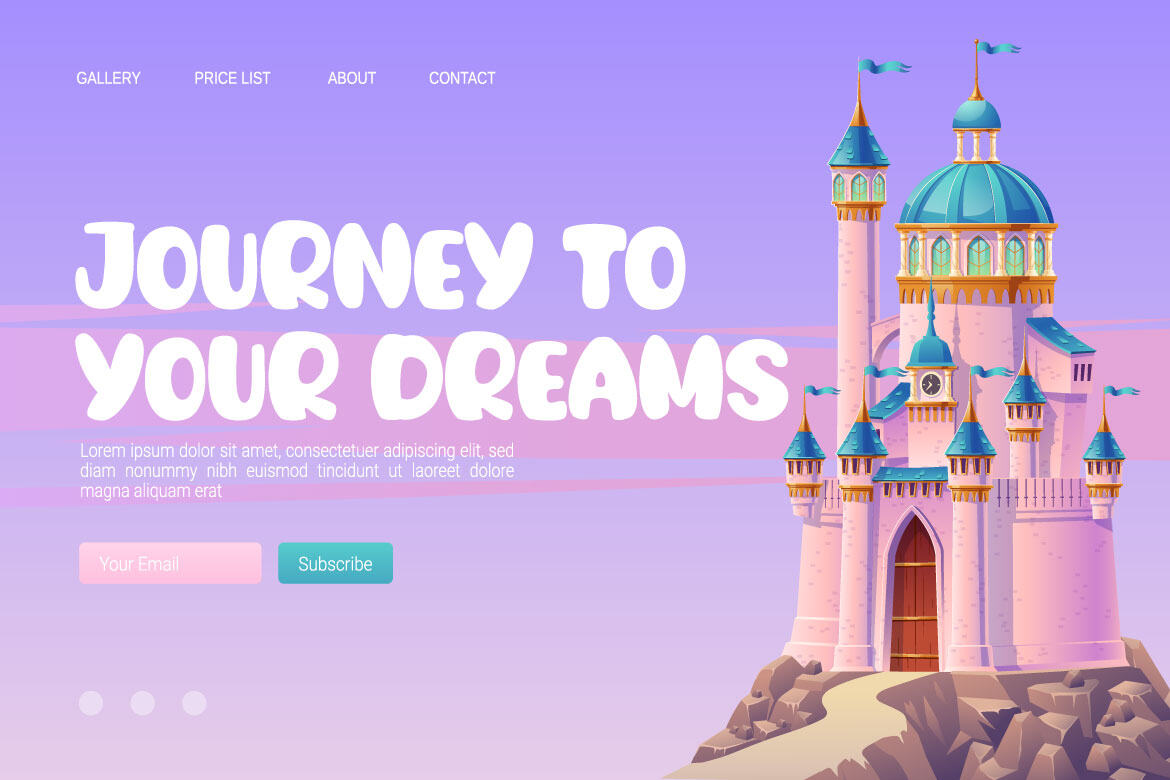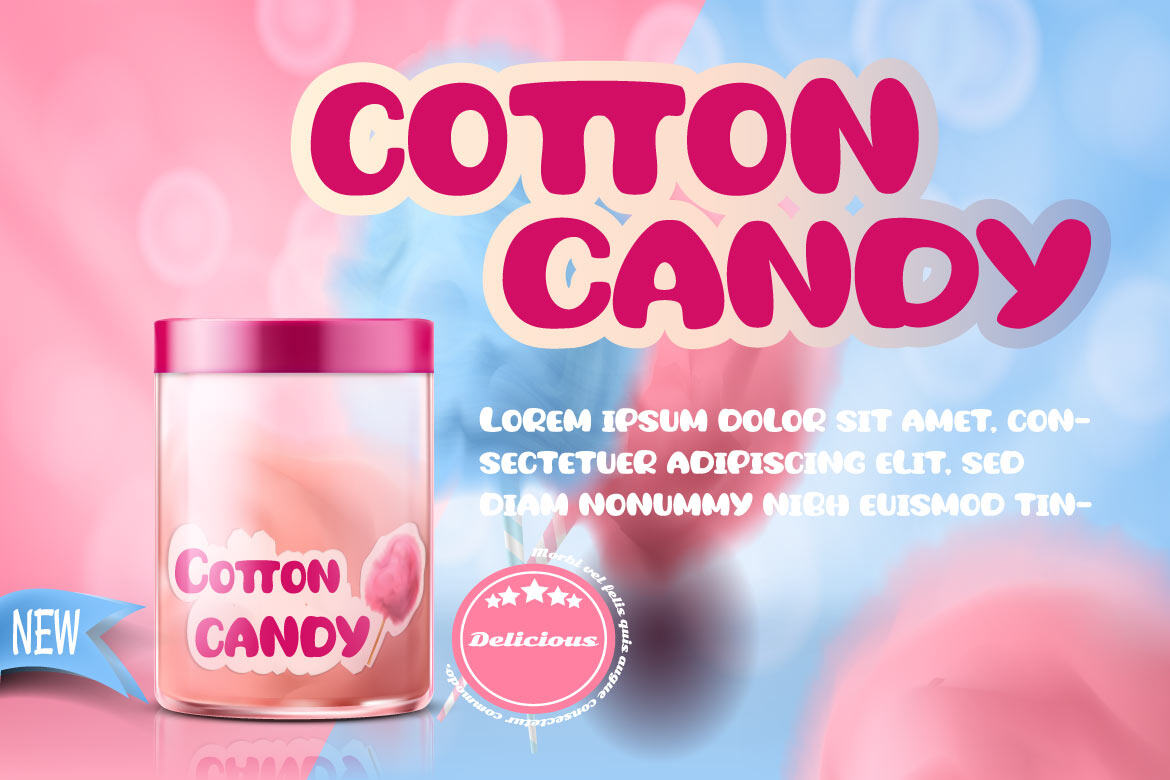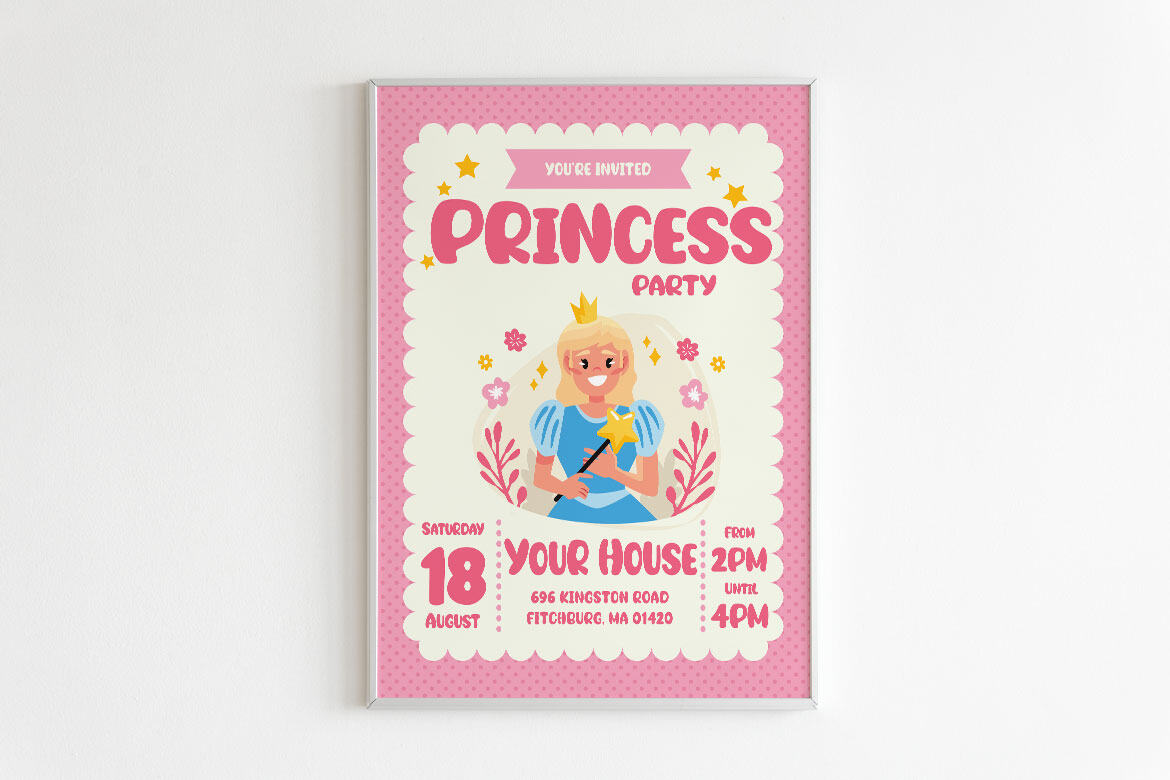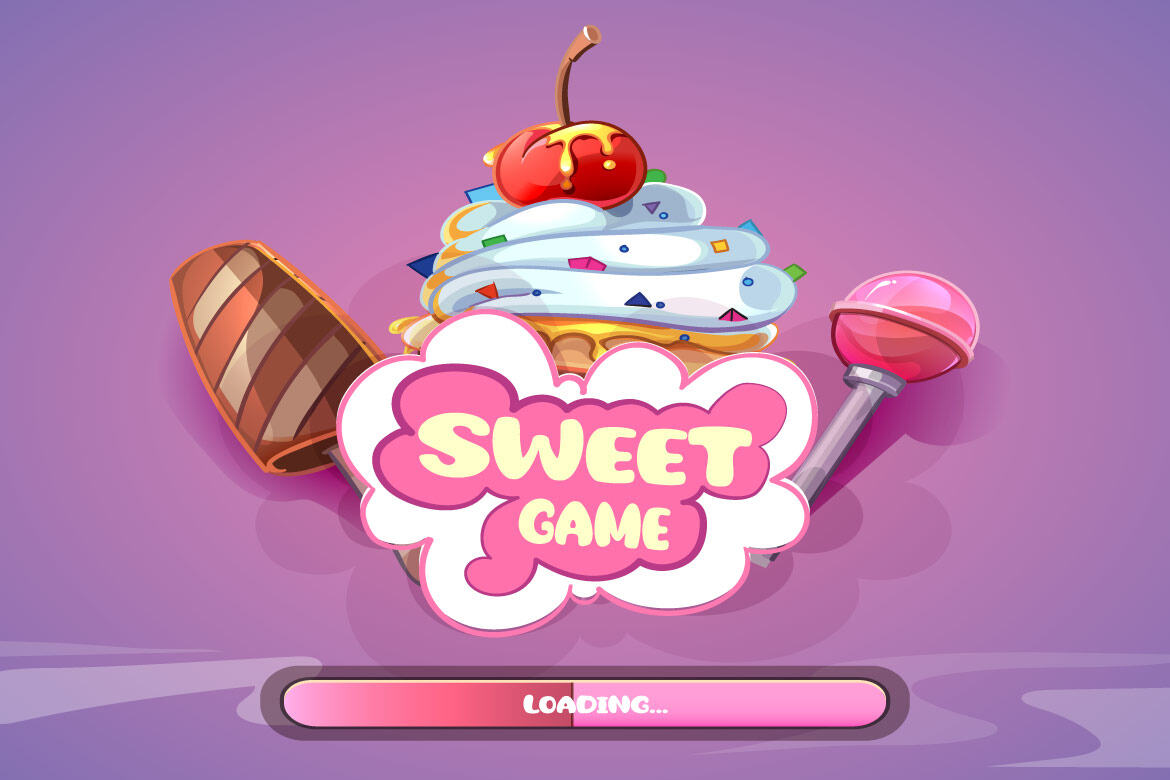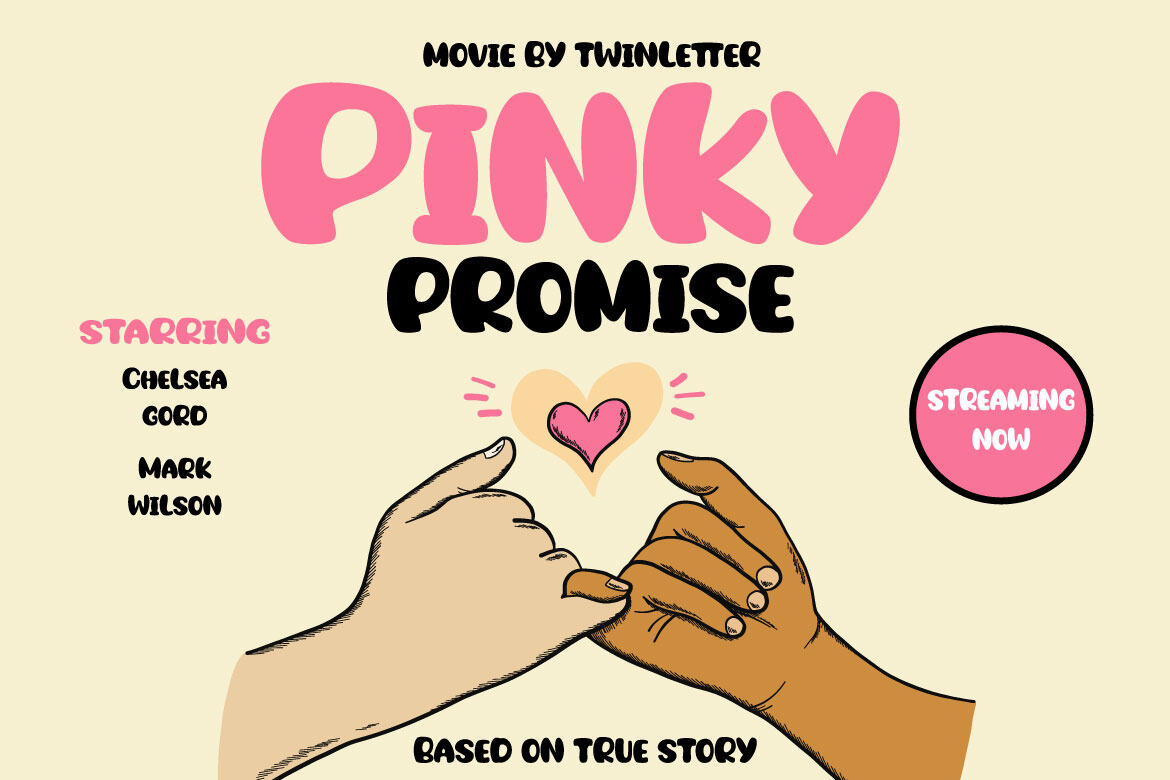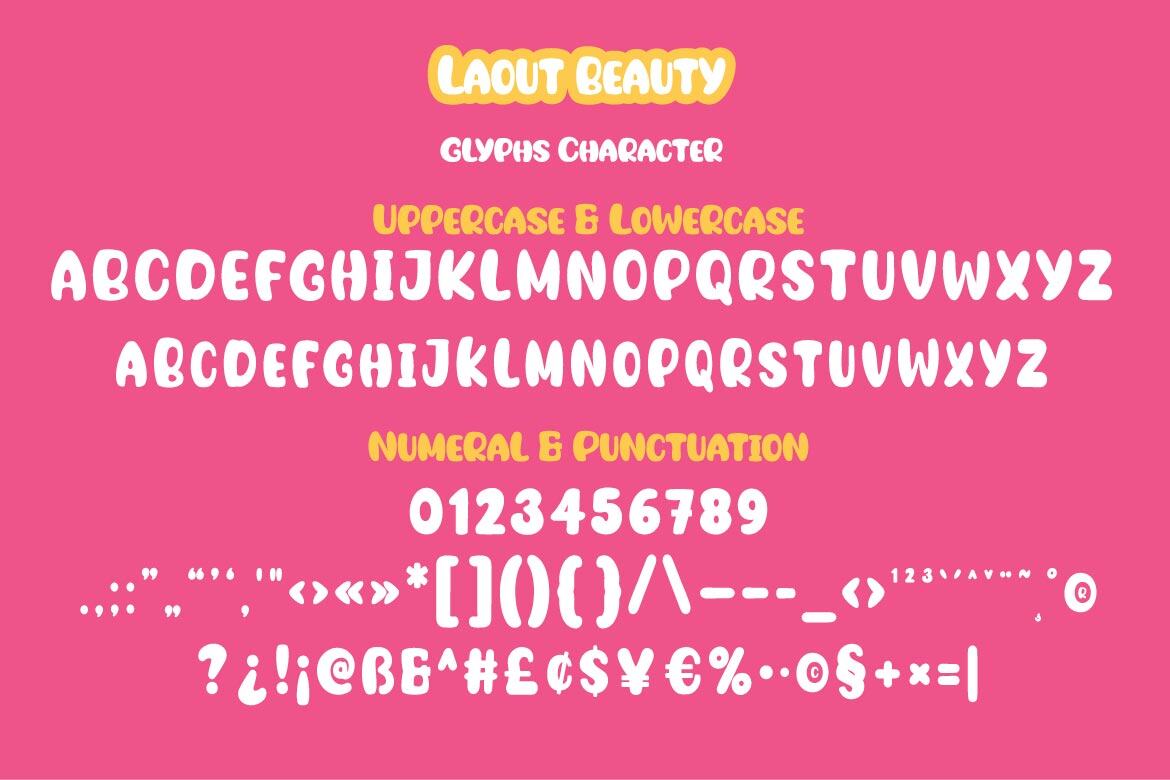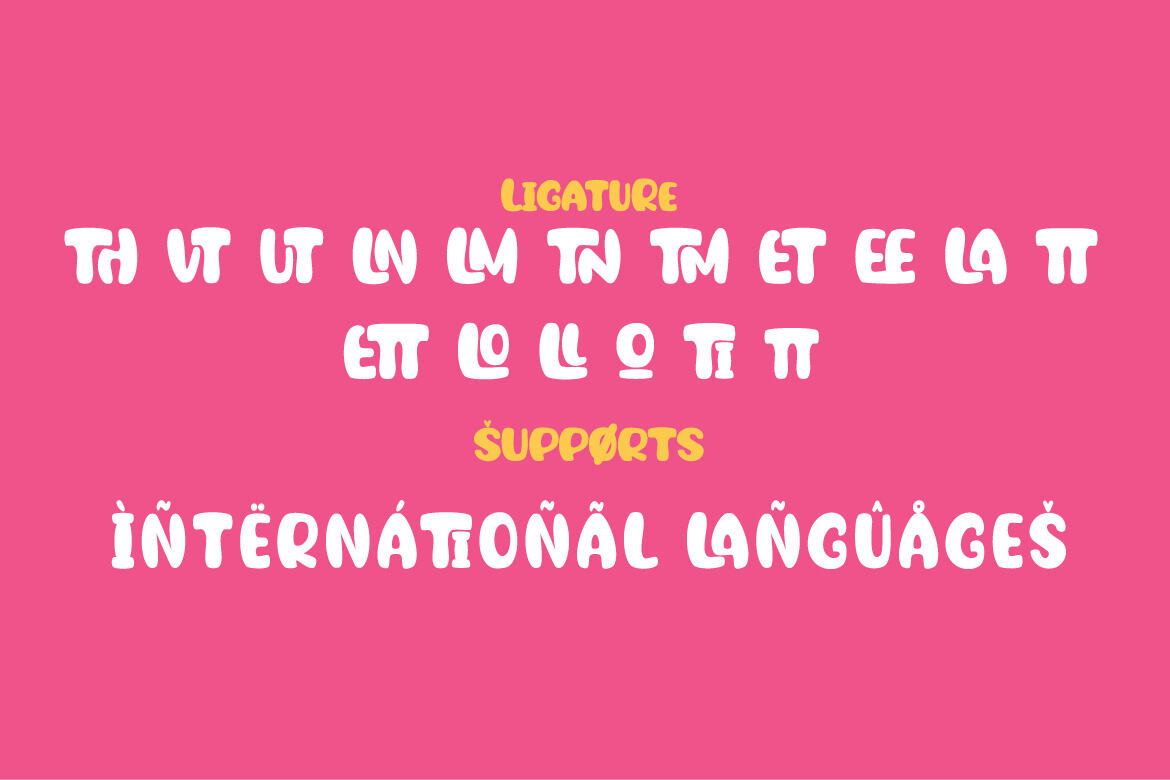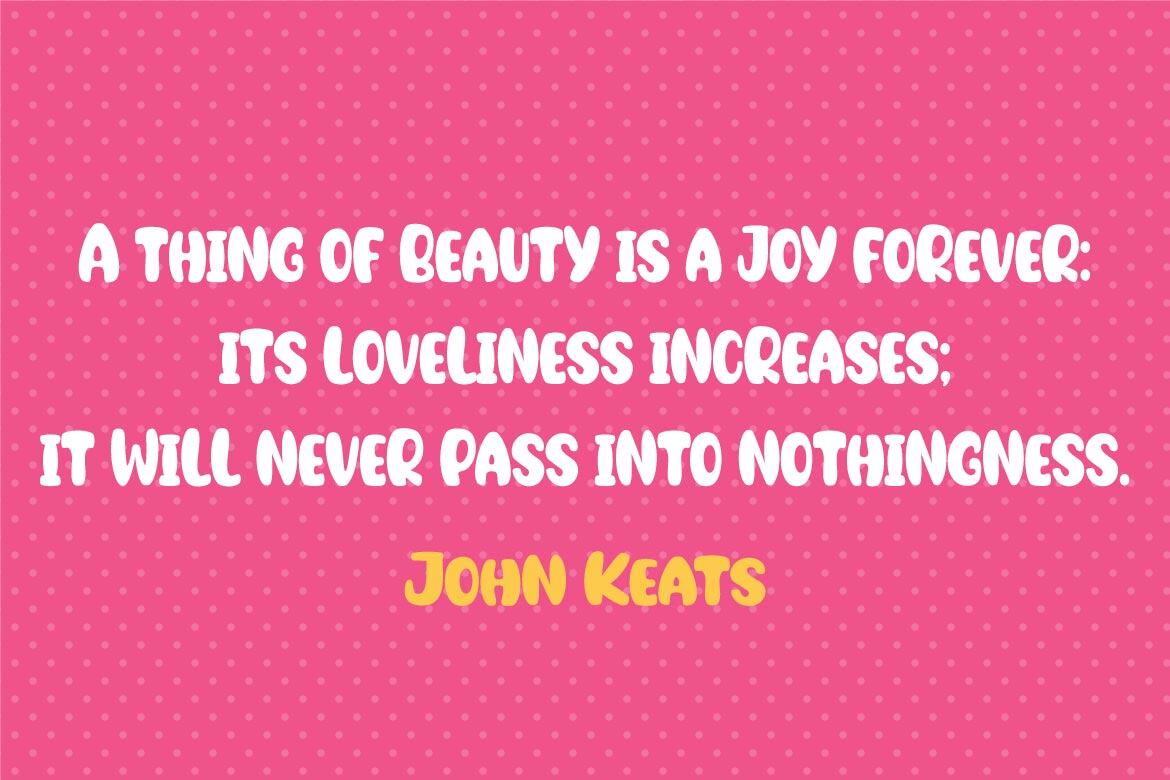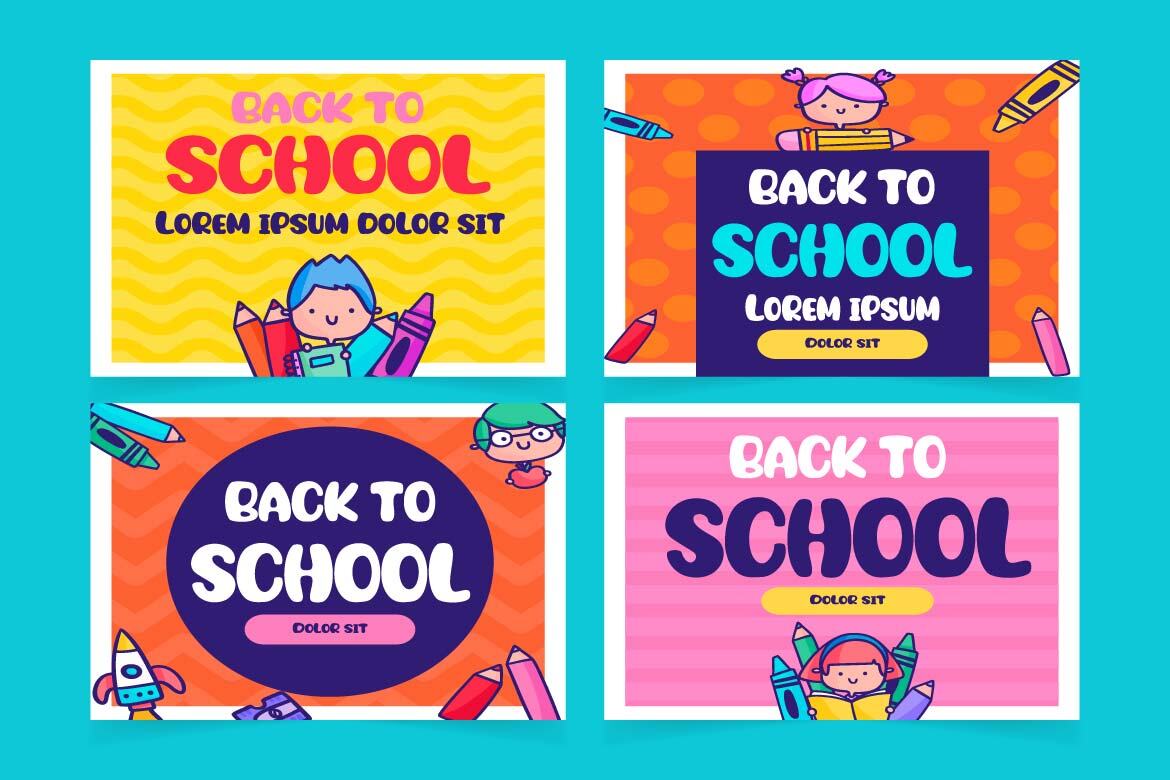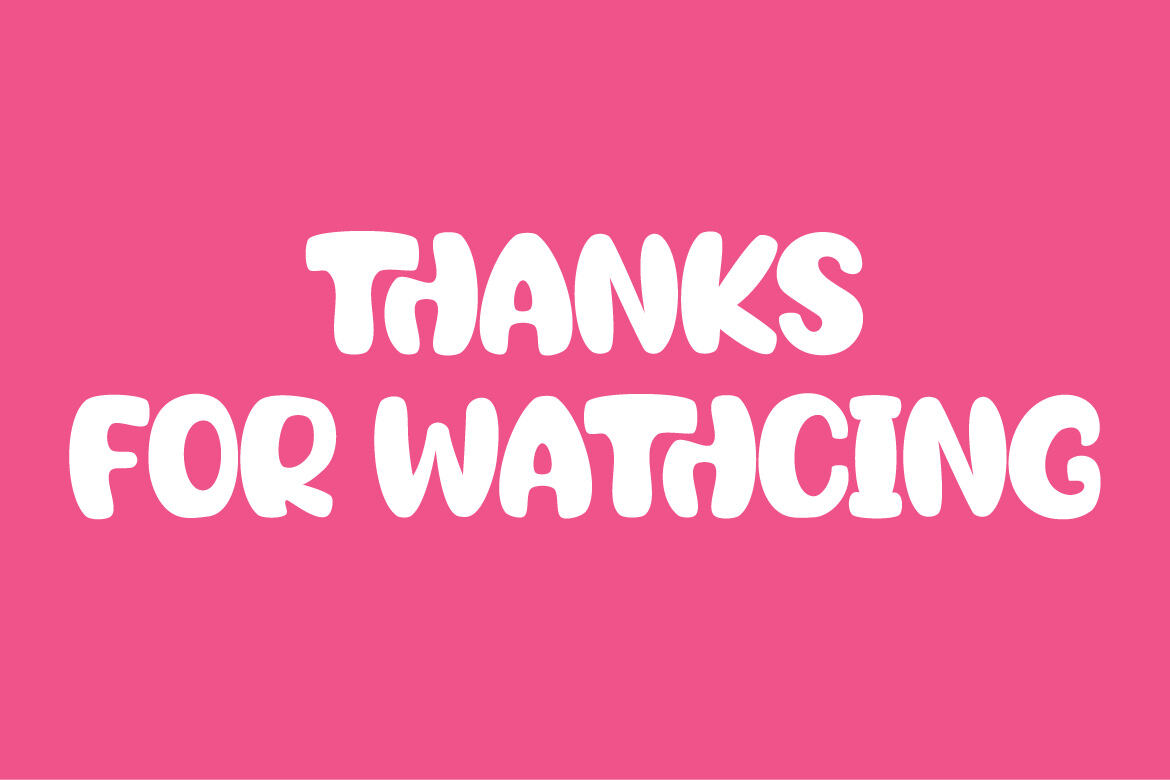
Laout Beauty
Laout Beauty playful font is incredibly adaptable in its use for all ages and genders, and it is always acceptable, not to mention the pleasant impression that occurs when you use it, causing your project to immediately capture a lot of attention. Let us wait, let alone utilize this font in your specific project, to capture the hearts of your customers, because this font offers all of your visitors a fun and familiar sensation.
This font is perfect for games, sporting events, branding, banners, posters, movie titles, book titles, quotes, logotypes, and more.